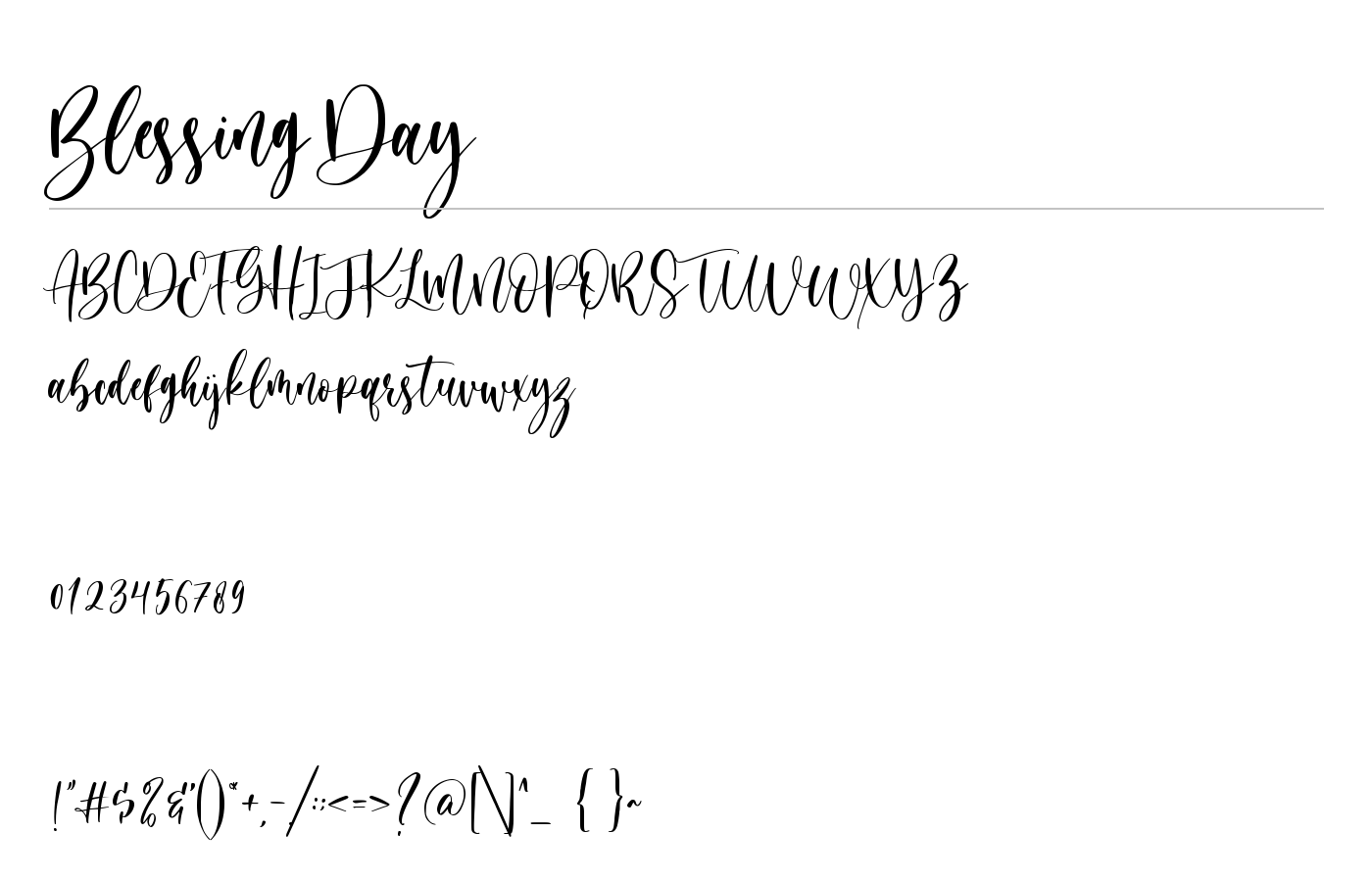
Blessing Day is a graceful script font with elegant, flowing strokes that create a warm, handwritten feel. Its slender, slightly varied line weights and delicate curves make it perfect for adding a personal, stylish touch to invitations, branding, and social media designs. This font works beautifully in creative projects where a friendly yet refined aesthetic is desired.
Blessing Day Font
About Blessing Day Font
| Font family | Blessing Day Font |
| Designer | Muhamad Yusron Billah |